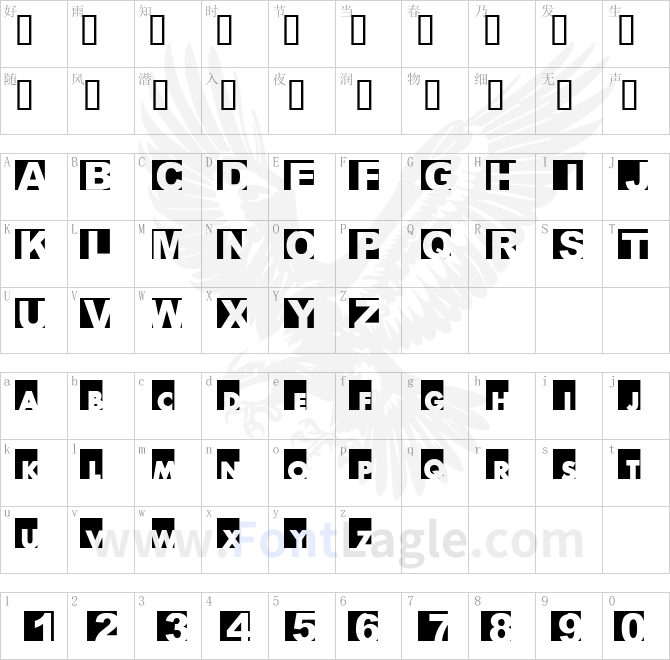
- Font name:BIGARIAL
- Font Subfamily:UltraBold
- Font Subfamily ID:BIGARIAL UltraBold
- Font Full Name:BIGARIAL UltraBold
- Font Version:Graf X press 2.1 © 1998
- Postscript:BIGARIALUltraBold
- Font Copyright:Generated by Dieter Schumacher 1998